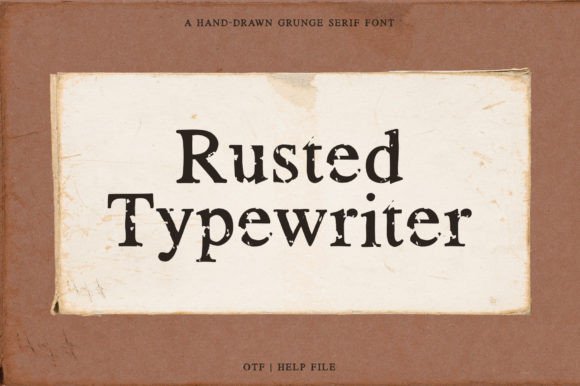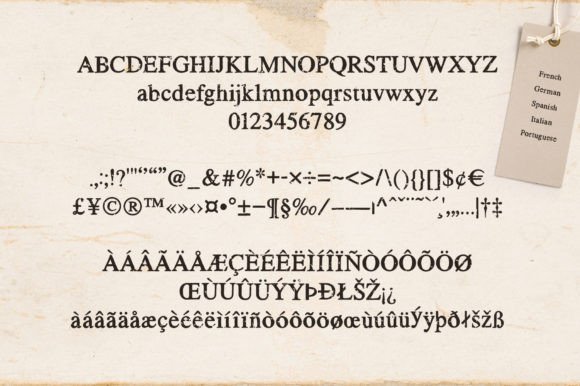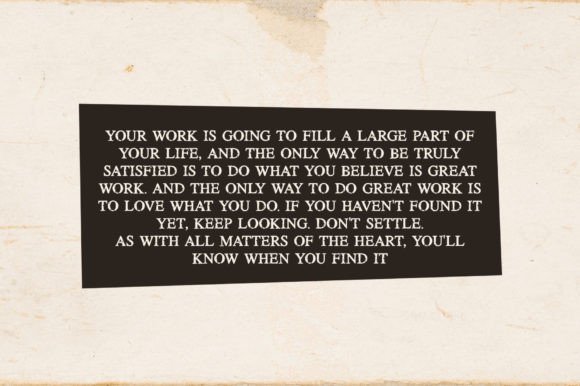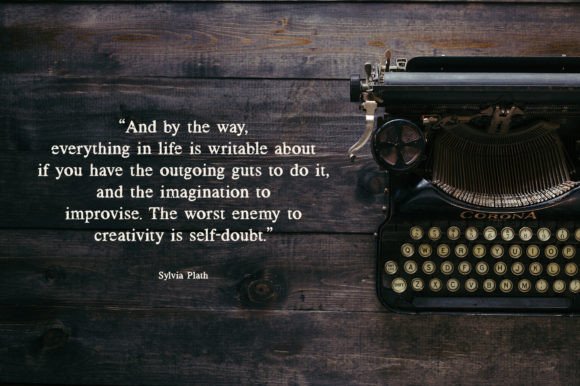
Rusted Typewriter Font: Vintage Grunge Serif for Authentic Designs
About the Rusted Typewriter Font
Meet Rusted Typewriter Font, a stunning font that brings a touch of elegance and professionalism to any design. Introducing Rusted Typewriter, an eroded serif font featuring hand-crafted letters and symbols. This font has been carefully drawn and eroded (using custom-made vector textures) to give a vintage and organic vibe to any graphics, merchandise, or branding.
Rusted Typewriter excels in headlines, short text blocks, logos, and packaging design where its vintage character adds visual interest. It works particularly well for projects with a retro, industrial, or handcrafted aesthetic. Avoid using it for large blocks of body text or UI elements; its unique texture and slightly irregular letterforms can hinder readability in extended use.
Its strong personality pairs well with clean, modern sans-serif fonts like Helvetica or Open Sans for a balanced contrast, or with a more playful script font like Pacifico for a vintage-inspired design. A geometric sans-serif like Montserrat could also create a striking juxtaposition against its organic forms.
The overall personality is ruggedly charming, conveying a sense of authenticity and vintage appeal. It’s ideal for brands that wish to project a sense of history, craftsmanship, or a slightly rebellious spirit.